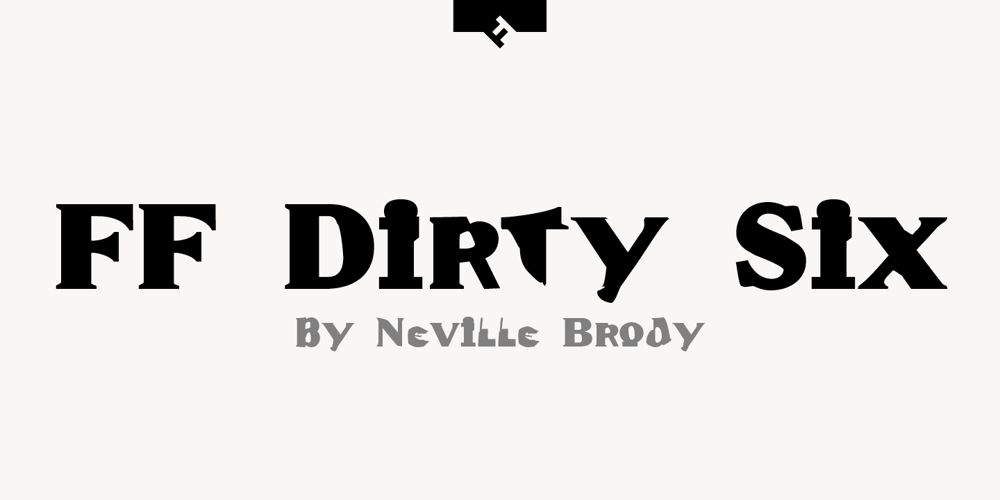
FF Dirty Six
FF Dirty Six font
FF Dirty Six Font Family was designed by Neville Brody and published by FontFont. FF Dirty Six contains 1 styles and family package options. British type designer Neville Brody created this display FontFont in 1994. The font is ideally suited for music and nightlife and poster and billboards. FF Dirty Six provides advanced typographical support with features such as ligatures. It comes with proportional lining figures. This FontFont is a member of the FF Dirty super family, which also includes FF Dirty Four, FF Dirty One, FF Dirty Seven, and FF Dirty Three.